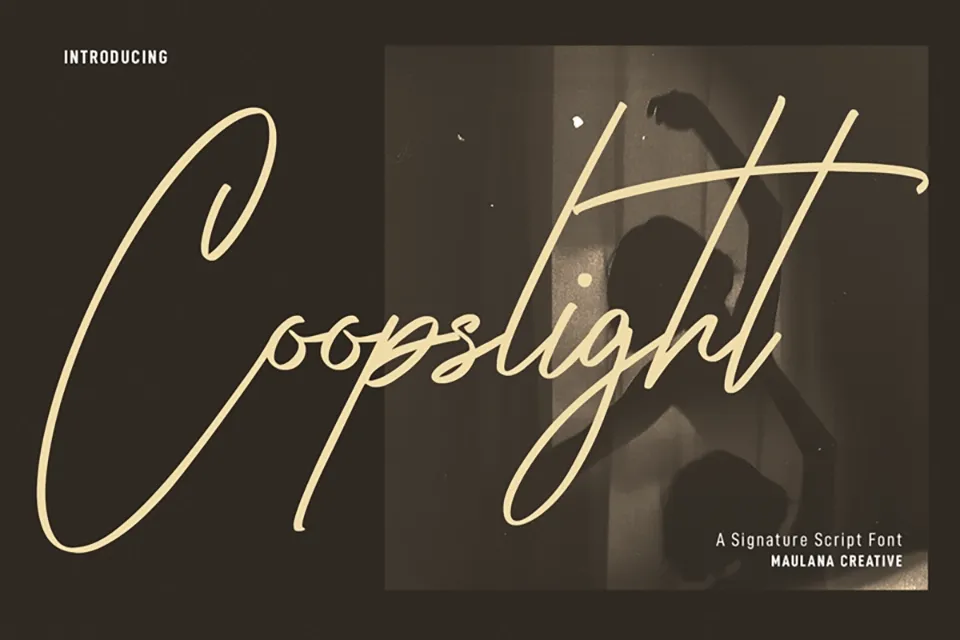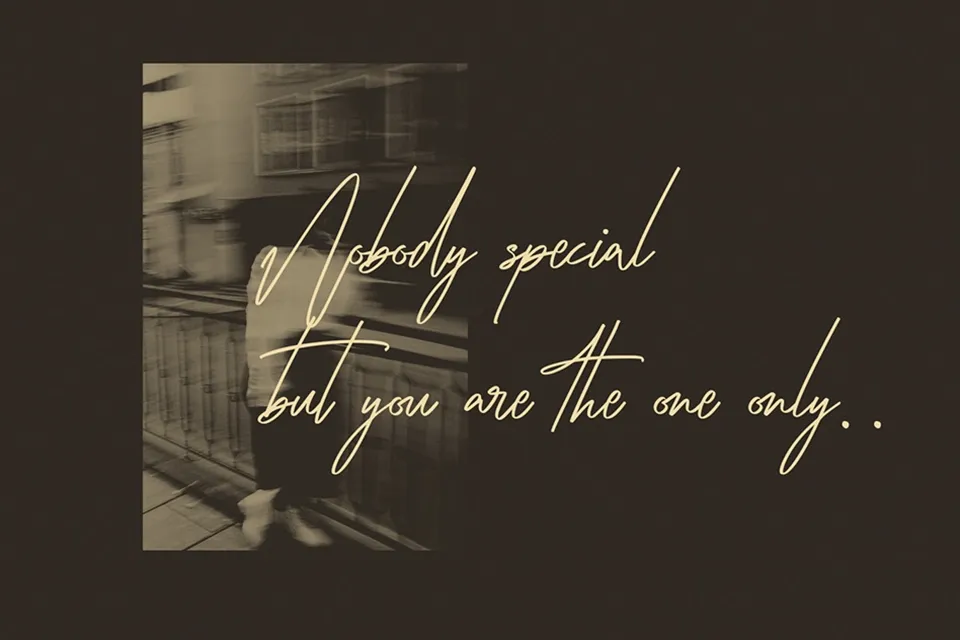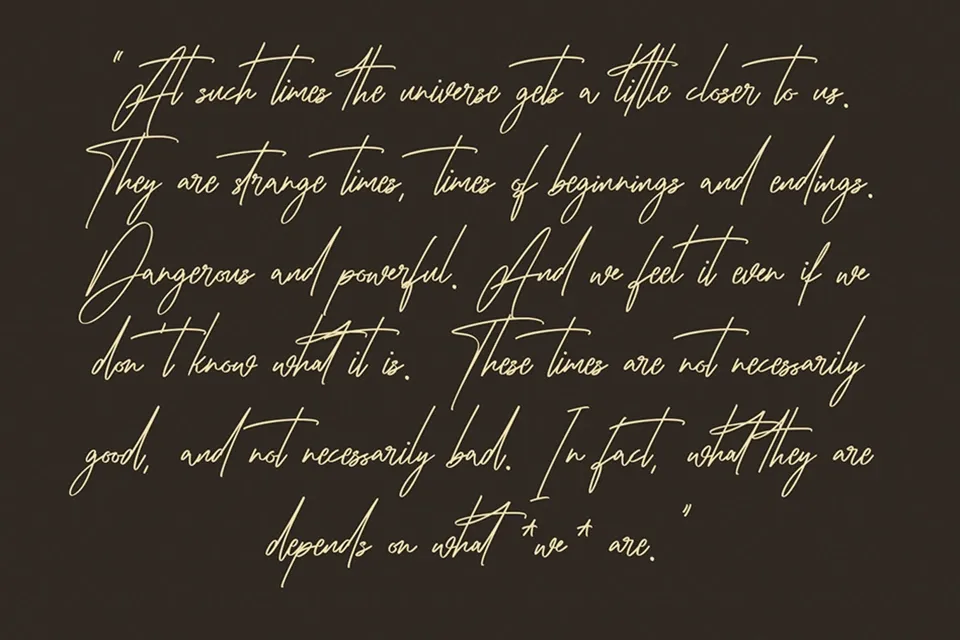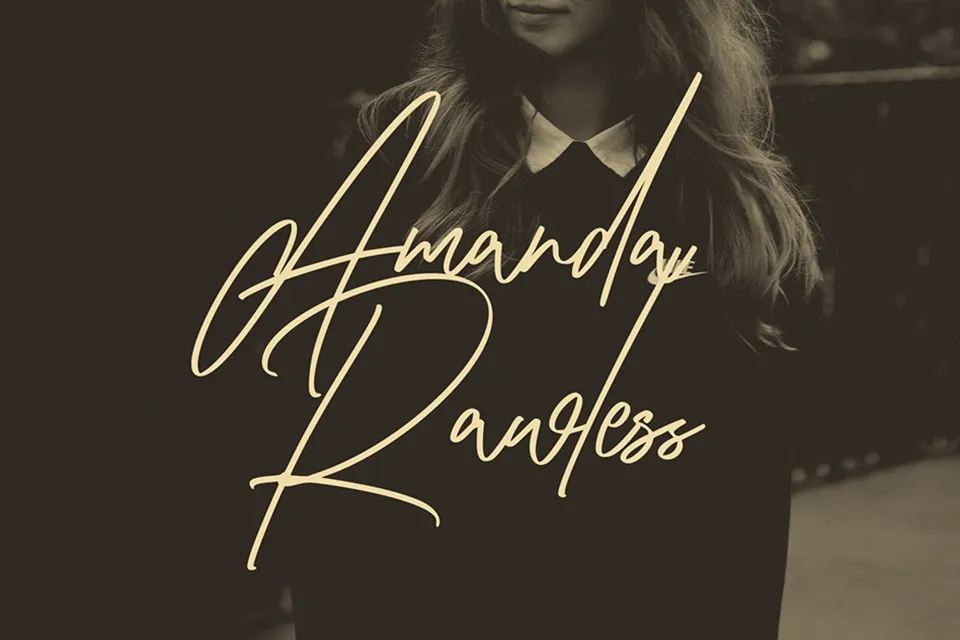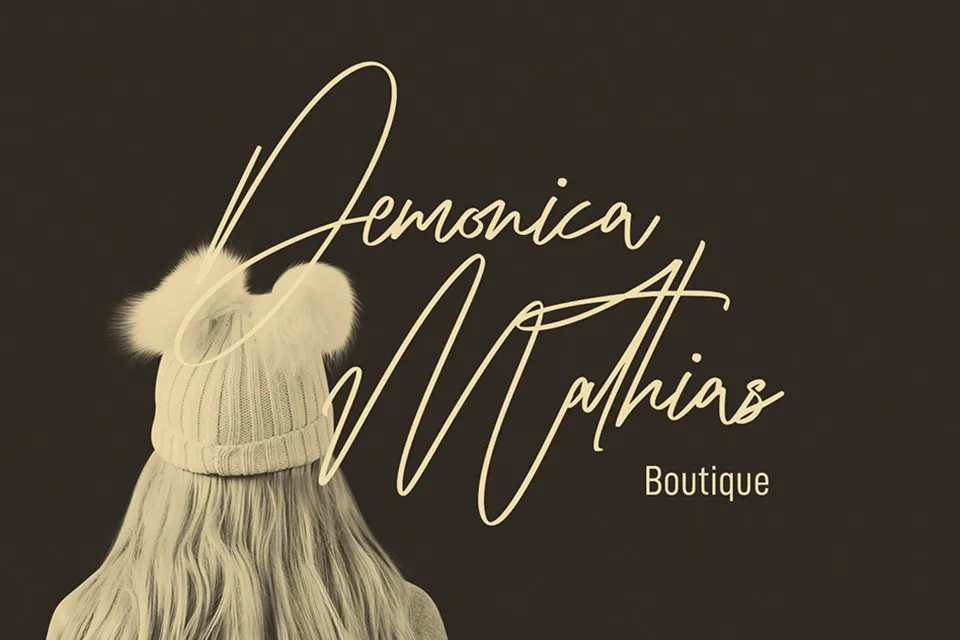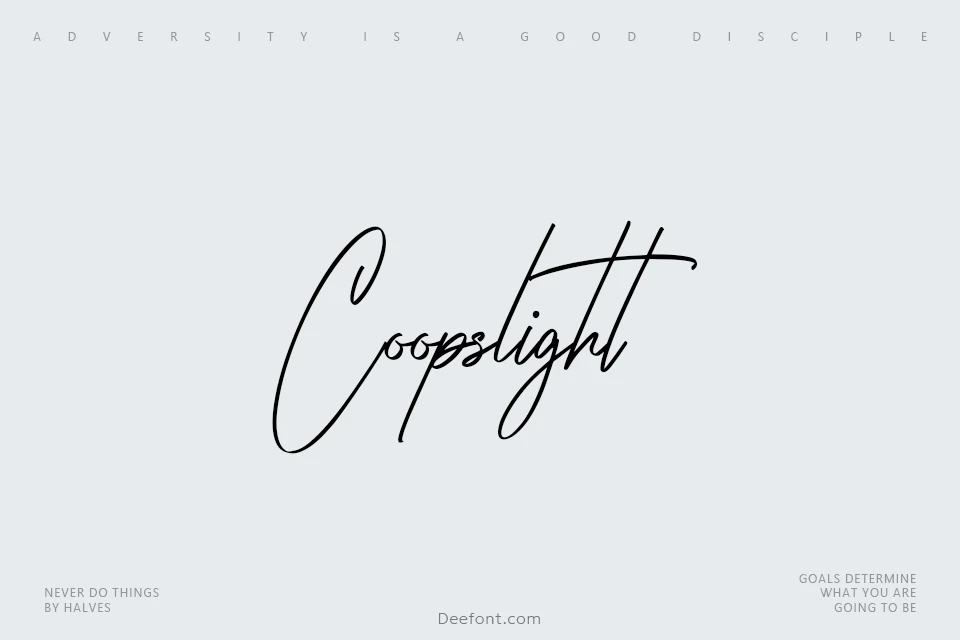
Coopslight Font
Coopslight Font is a modern handwritten script font with a casual, organic look and expressive, varied strokes. Designed to deliver a signature-style appearance, it is ideal for logos, social media graphics, movie titles, book covers, and short text projects. Its multilingual support and creative alternates make it a versatile choice for designers seeking a stylish and personal touch.